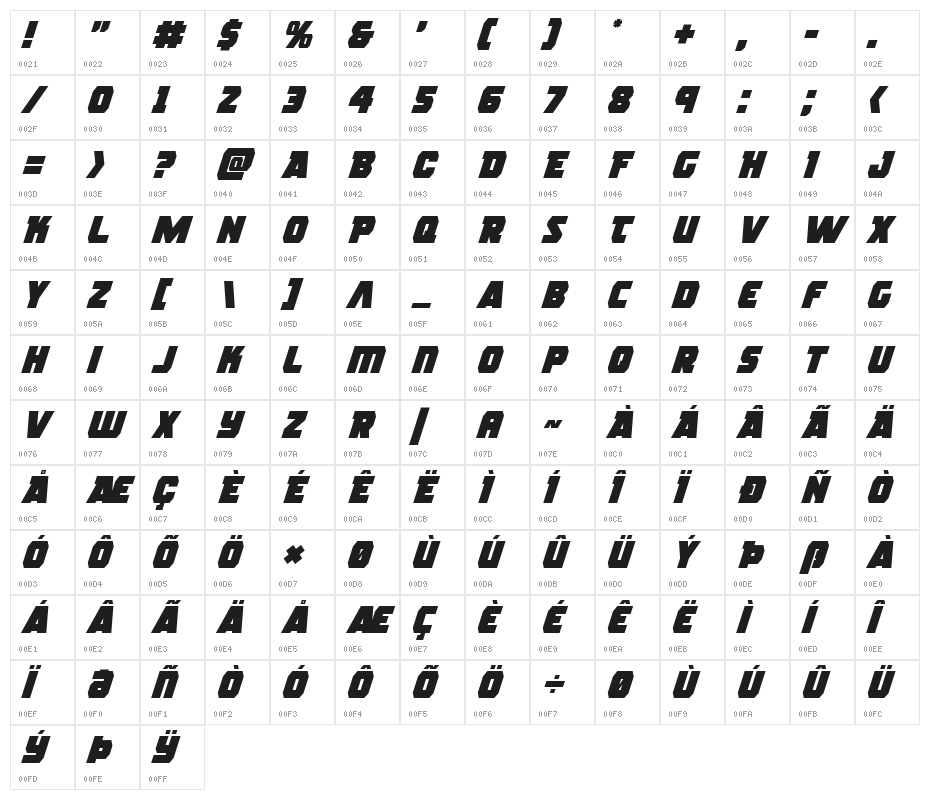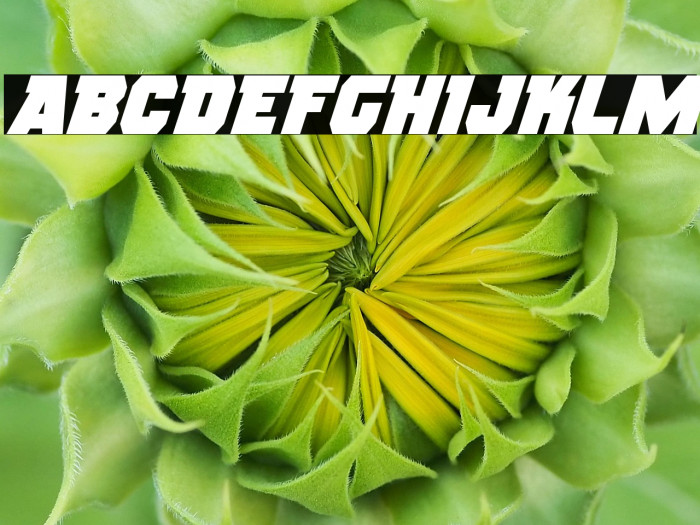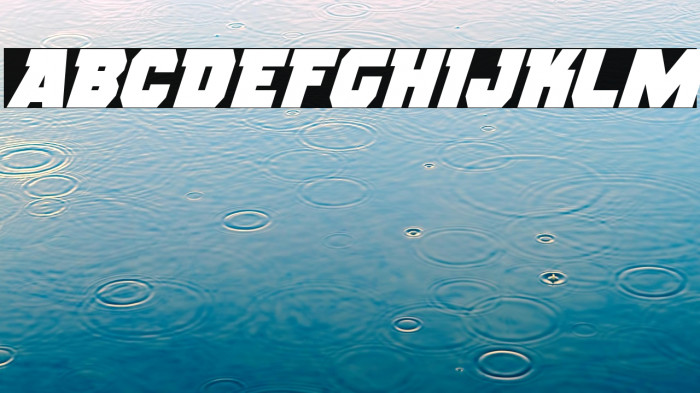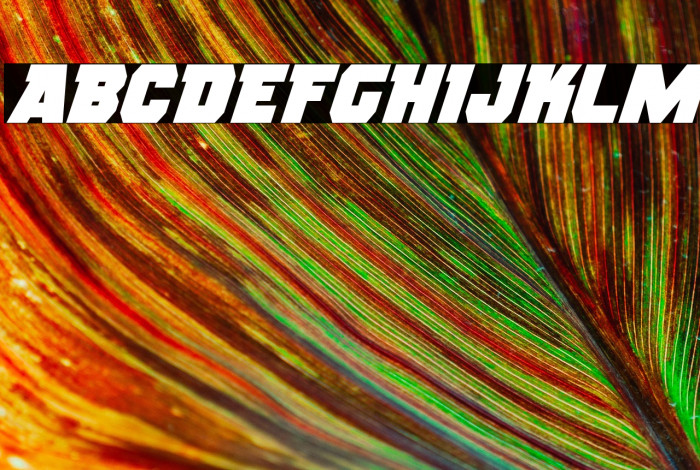
Rogue Hero Italic Font
Rogue Hero Italic Description
This font features a bold and dynamic style with a strong italic slant, giving it a sense of motion and energy. The characters are blocky and robust, with sharp angles and a consistent thickness throughout, creating a powerful and impactful appearance. The uppercase and lowercase letters maintain a uniformity that enhances readability while still offering a unique and aggressive aesthetic. The numbers and special characters follow the same design principles, ensuring a cohesive look across all glyphs. This font is ideal for projects that require a bold statement and a modern, edgy feel.
| Proposed Projects | Ideal for sports branding, action movie posters, video game titles, and dynamic advertising campaigns. |